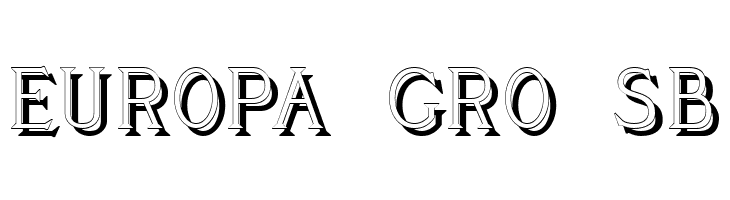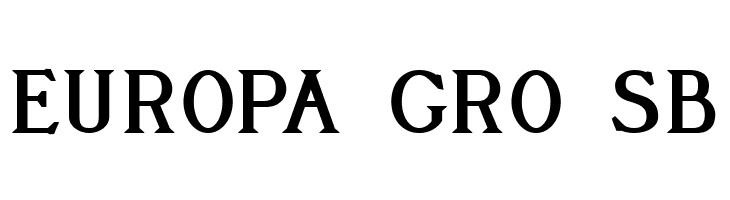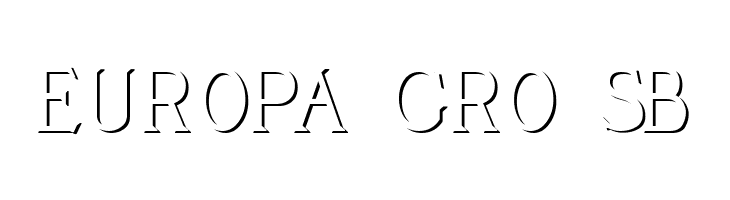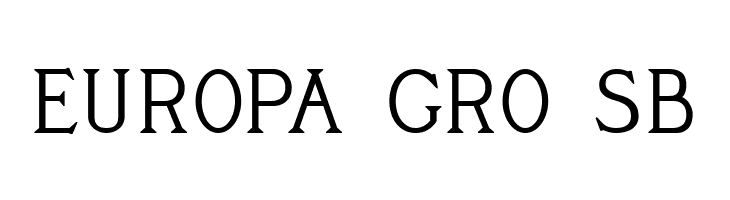
Cleaver's_Juvenia Font
Font by Paul Lloyd
A classic serif font with a modern twist, featuring elegant and refined letterforms.
Cleaver's_Juvenia_Blocked Font
Font by Paul Lloyd
A bold, outlined serif font with a three-dimensional effect.
Cleaver's_Juvenia_Heavy Font
Font by Paul Lloyd
A bold, heavy serif font with a classic and authoritative style.
Cleaver's_Juvenia_Embossed Font
Font by Paul Lloyd
An embossed serif font with a three-dimensional, shadowed effect.
Cleaver's_Juvenia_Shadowed Font
Font by Paul Lloyd
A bold, shadowed serif font with a classic yet modern appeal.
Cleaver's_Juvenia_Raised Font
Font by Paul Lloyd
A bold, three-dimensional font with a raised effect and shadow detailing.